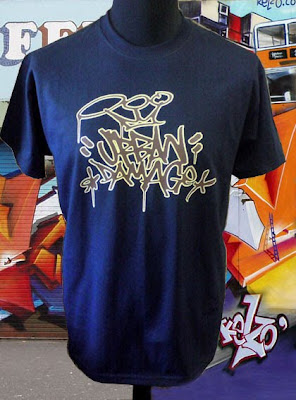
ONE more idea to stay. Graffiti alphabets sure has its own way to decorate most surface, even for a clothes. This T-shirt by the picture can be your new goal as writer to achieve. With that kind of modification I’m positively guaranty that will work to attract attention. Coz after all graffiti alphabets made for drawing people attention for further notification on the issues of the writers include in his graffiti alphabets works. The blue color of the T-shirt take as the background of the graffiti. And with the combination of white and gold, modify alphabets embedded nicely. Making the T-shirt cool enough to be wanted.